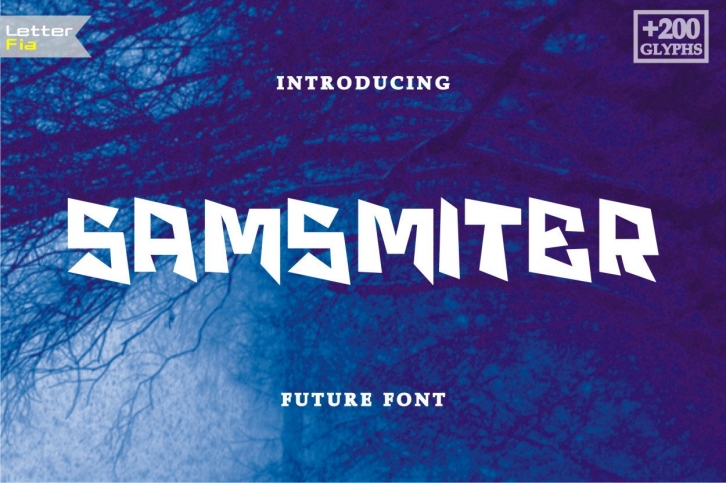
Samsmiter is a thick lettered, graffiti-styled display font that has a futuristic, street art vibe. This font is suitable for designs such as t-shirts, sportswear, logos, advertisements, clothing, and more.